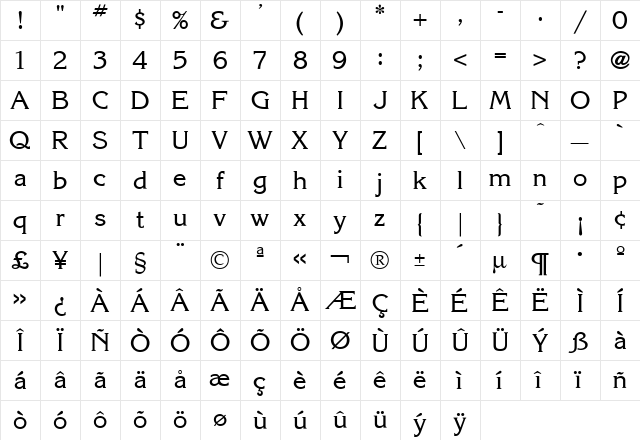
Korinthia Regular
Korinthia Family
Korinthia Regular
Korinthia Regular Font Preview
Korinthia Regular Uppercase Preview
Korinthia Regular Lowercase Preview
Korinthia Regular Numeric Preview
Korinthia Regular Character Map
Complete Korinthia Regular glyph index. Displaying only characters natively supported by Korinthia Regular font.
Korinthia Regular Character Map
Design Context for Korinthia
Korinthia is a composed and adaptable typeface that performs quietly and consistently across a wide range of design contexts.